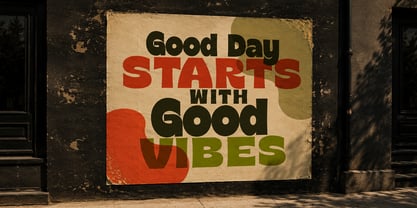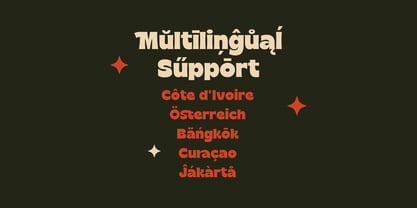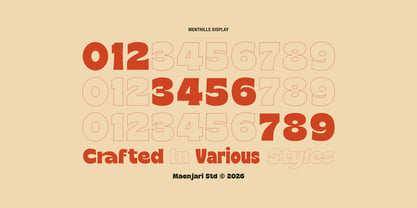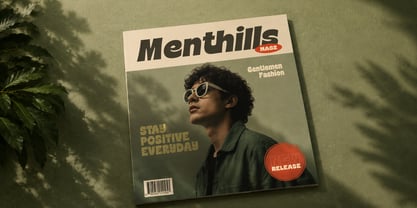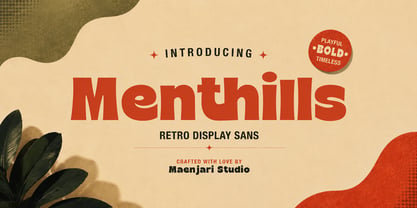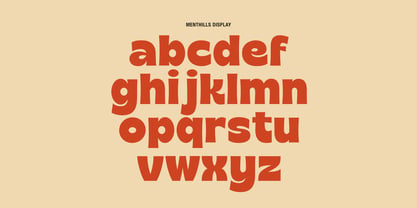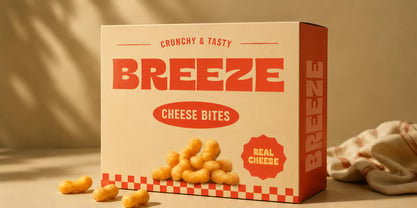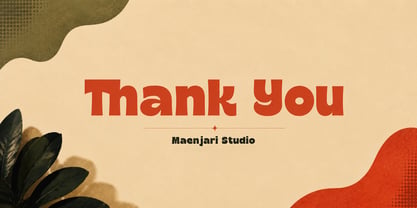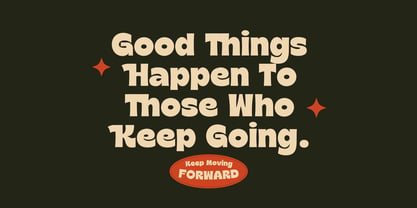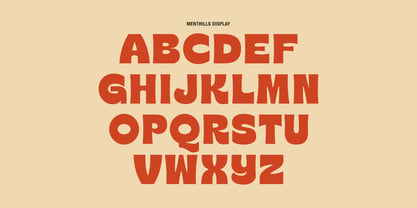
Menthills
Menthills is a robust, retro-inspired display sans-serif family designed for modern editorial, packaging, and identity design. Paying homage to the expressive advertising types of the 1970s, Menthills features high-contrast bold weights, smooth ink-trap-like curves, and a commanding structural presence.
The family is organized into six coordinated styles: Regular, Italic, Condensed, and their corresponding Outline weights. The Condensed and Italic styles offer compact typesetting options for demanding editorial environments, such as magazine headlines, book covers, and packaging panels, while the Outline styles provide a lighter, more athletic contrast to the heavier solid weights.
Menthills is technically optimized with a complete set of numbers, standard punctuation, and comprehensive Western and Central European language support. It is a reliable asset for agencies and publishers seeking a warm, nostalgic display system with modern digital performance.